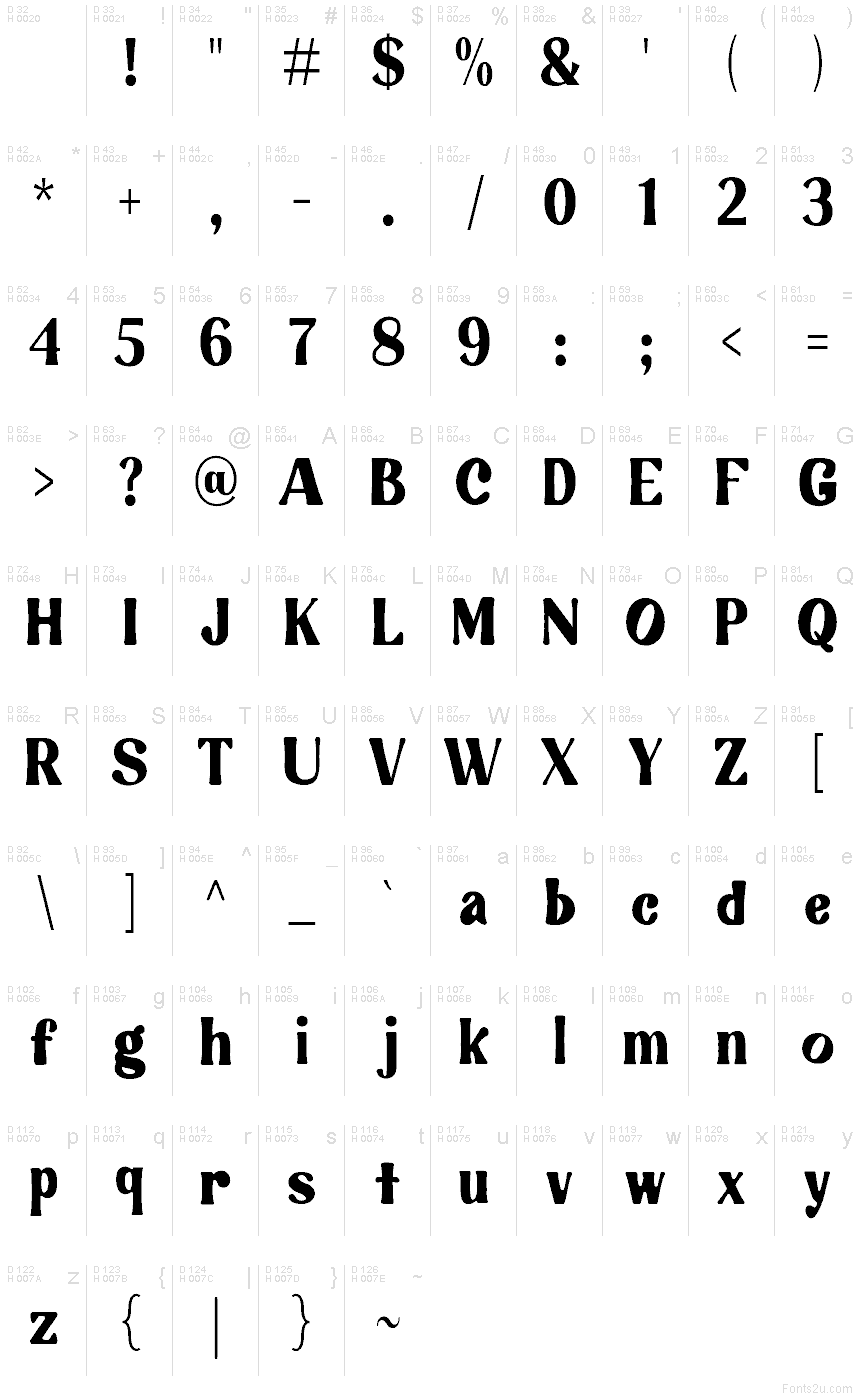
Rouge Vintage
Rouge Vintage font by Faristaputra Studio is a free bold retro display font. It stands out with plush teardrop terminals and bell-bottom strokes that feel inky and hand-pulled, like a 60s marquee freshly painted. The contrast is chunky but friendly, with soft curves that keep words compact and rhythmic—dramatic when large, charming up close.
Using Rouge Vintage, headlines snap with character without going gimmicky. This free font shines on posters, boutique logos, album covers, coffee packaging, event flyers, and café menus; it also works beautifully for editorial headlines and social graphics. Pair it with a crisp, neutral sans to let the curves sing, and give it a touch of extra tracking at big sizes.